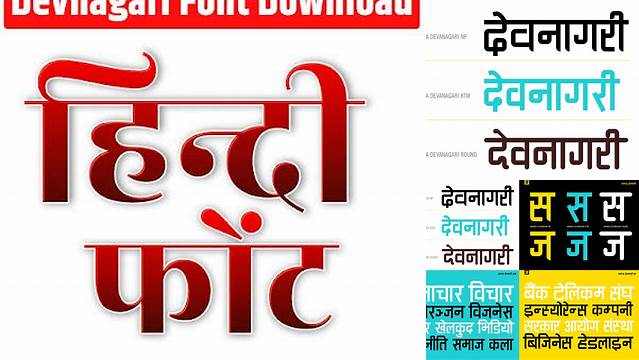
Devanagari Fonts: An Introduction
Devanagari is a script used for several Indian languages, including Hindi, Marathi, and Nepali. Its elegant curves and intricate strokes make it visually appealing. Choosing the right Devanagari font is crucial for readability and conveying the intended message. A well-designed font can significantly enhance the overall look and feel of your project, whether it's a website, a document, or a creative design.
Think of Google Devanagari fonts as your gateway to accessing a wide range of high-quality typefaces without breaking the bank. These fonts are designed to be versatile and compatible with various platforms, ensuring your text looks great everywhere. Why spend a fortune when you can get amazing fonts for free? Let’s explore the best options available and how to get your hands on them.
Top Google Devanagari Font Choices
Choosing the best Google Devanagari font depends on your specific needs and aesthetic preferences. However, some fonts consistently stand out for their quality, readability, and versatility. Here are a few top choices to consider:
- Poppins: A geometric sans-serif font that includes Devanagari support. It’s clean, modern, and works well for both headings and body text.
- Noto Sans Devanagari: Part of Google's Noto font family, designed to support all languages. It's highly readable and a great choice for ensuring consistent display across different devices and platforms.
- Roboto: Another popular sans-serif font that offers Devanagari support. It’s versatile and suitable for a wide range of applications.
- Montserrat: While primarily known for its Latin characters, Montserrat also includes Devanagari glyphs, making it a stylish option for bilingual projects.
- Siddhanta: A more traditional-looking Devanagari font that’s perfect for projects requiring a classic touch.